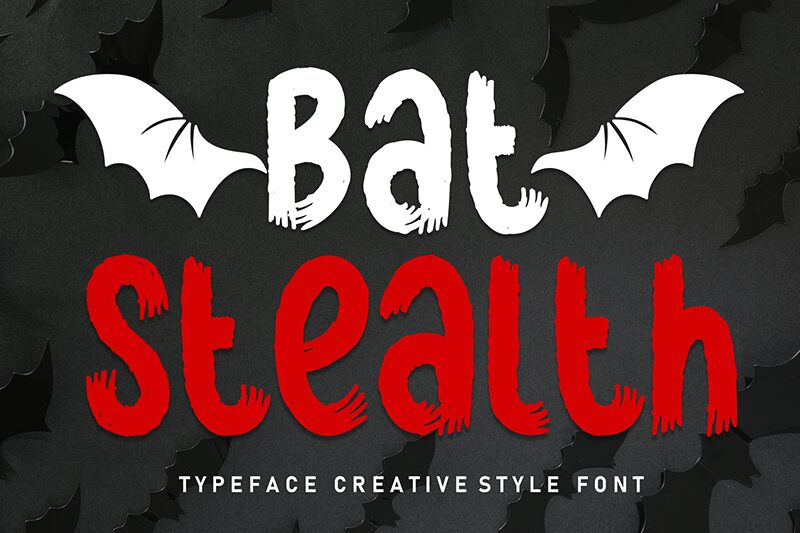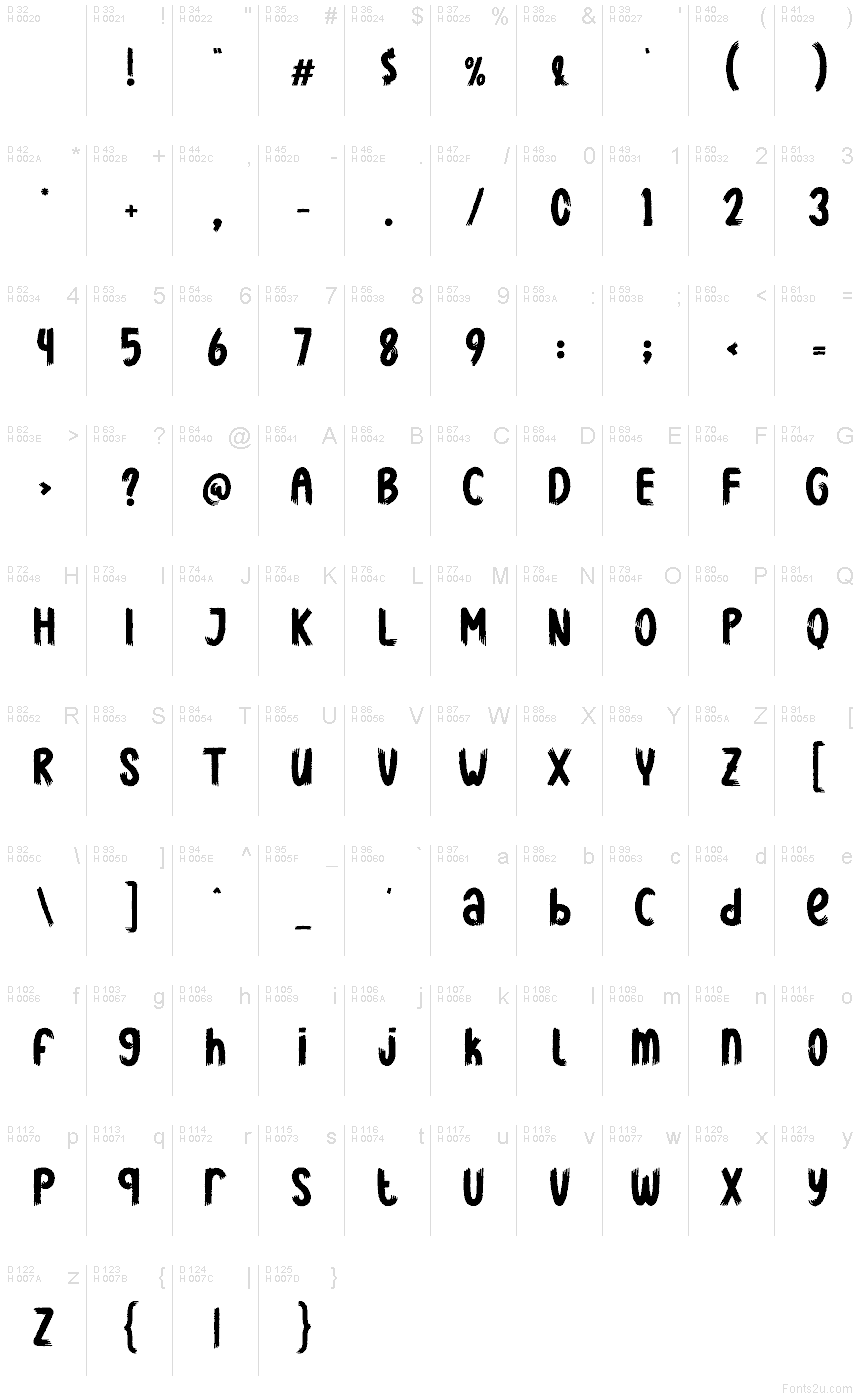
Bat Stealth
Bat Stealth font by Andi Moz is a free Halloween display font. Each letter looks hand-cut and inked, with shaggy edges and bat-like flares that feel quick and shadowy, like something swooping past a porch light. The rhythm is bold and compact, so headlines read loud without losing that eerie, handmade charm.
Using Bat Stealth, you can nail spooky party posters, haunted house flyers, trick-or-treat bag designs, seasonal stickers, social banners, YouTube thumbnails, and costume shop signage. This free font shines at larger sizes where its fuzzy, winged texture can breathe. Pair it with a clean geometric sans for body copy, or keep spacing roomy to let the inky edges glow.